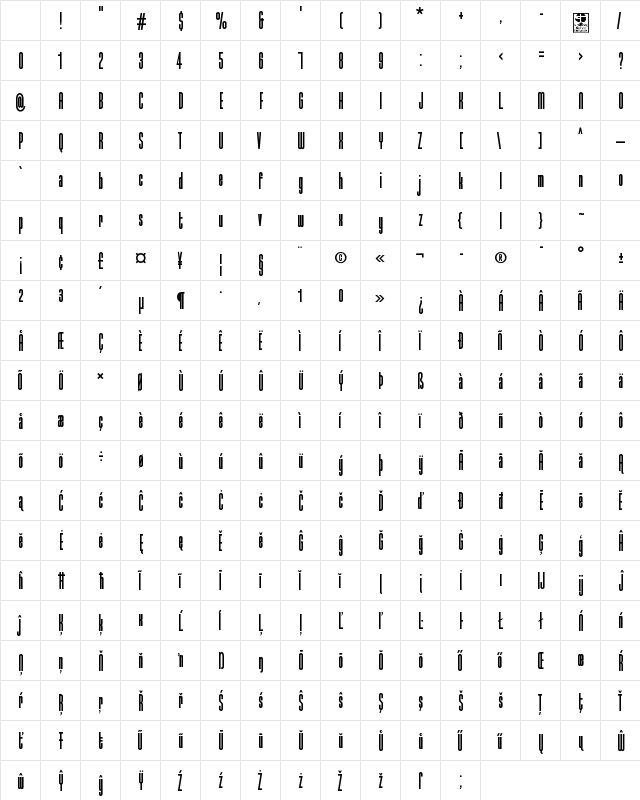
Typo-Longest Demo is a composed and adaptable typeface that performs quietly and consistently across a wide range of design contexts. Its bold stroke weight gives it real presence on the page.